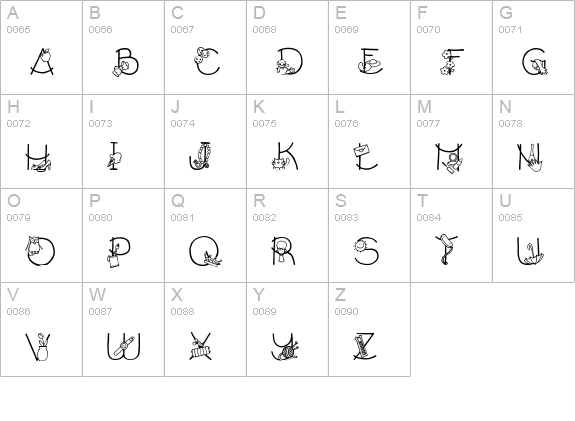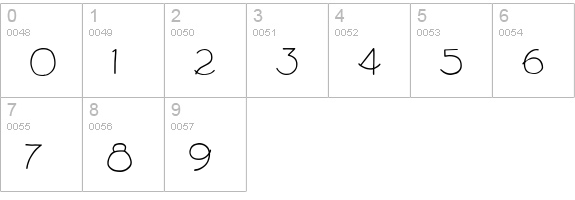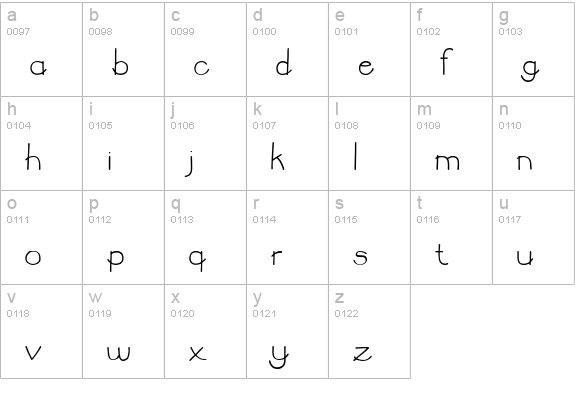
CK Alpha Girl Font Details
CK Alpha Girl font is a stylish and modern typeface that exudes confidence and femininity. With its sleek lines and elegant curves, this font is perfect for adding a touch of sophistication to any project. Whether you're designing a poster, logo, or website, CK Alpha Girl font is sure to make a statement. What sets CK Alpha Girl font apart is that it is not only visually appealing but also free to download. That's right, this stunning font is freely available for download at FontsMarket.com, making it accessible to anyone looking to elevate their design game without breaking the bank. So go ahead and give CK Alpha Girl font a try - you won't be disappointed. Let your creativity shine with this beautiful and versatile typeface that is sure to impress.